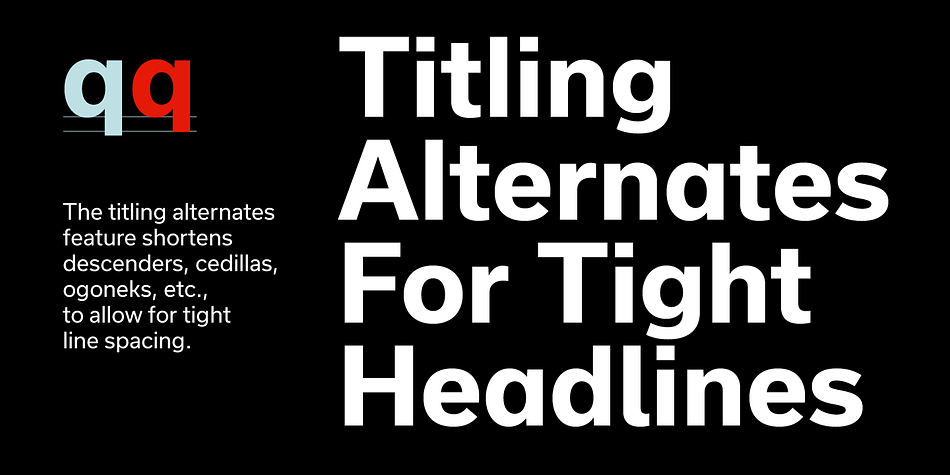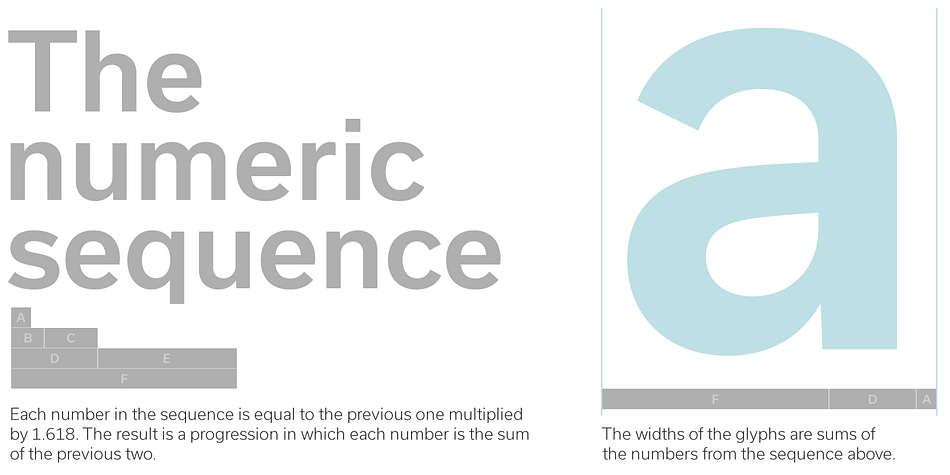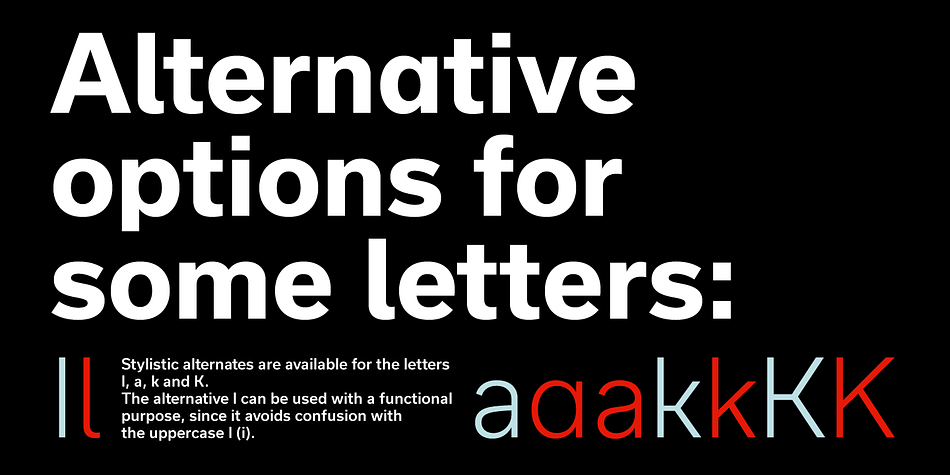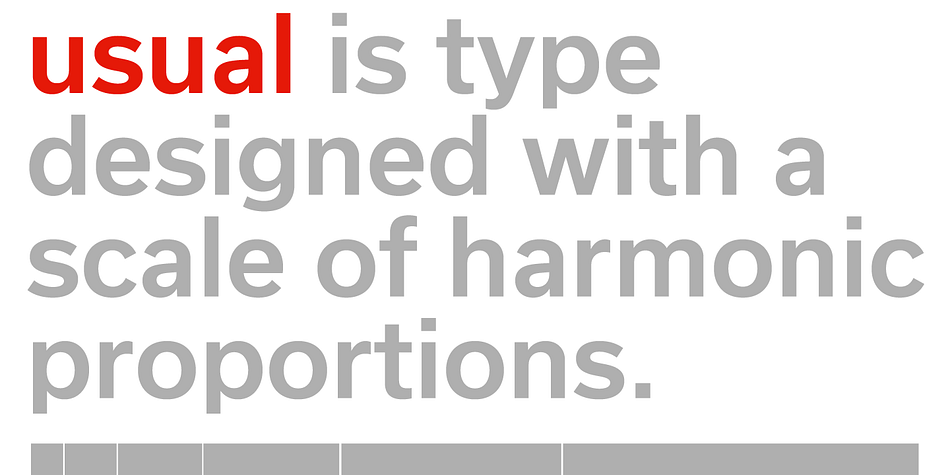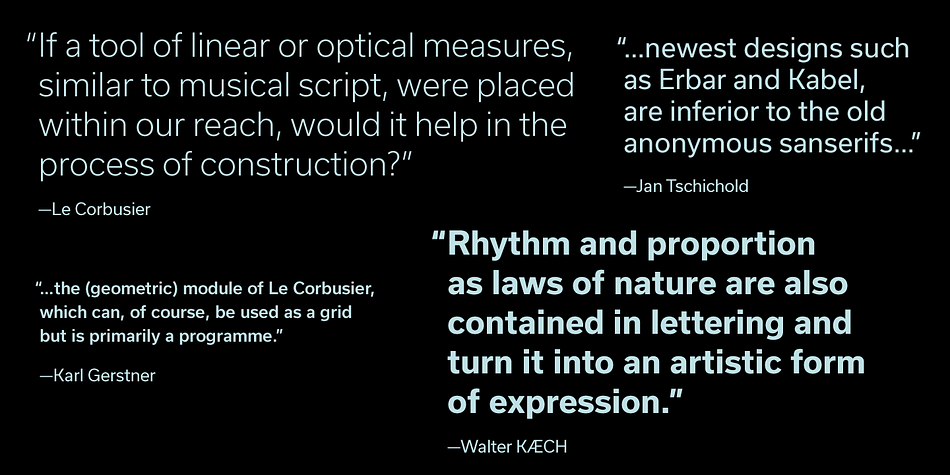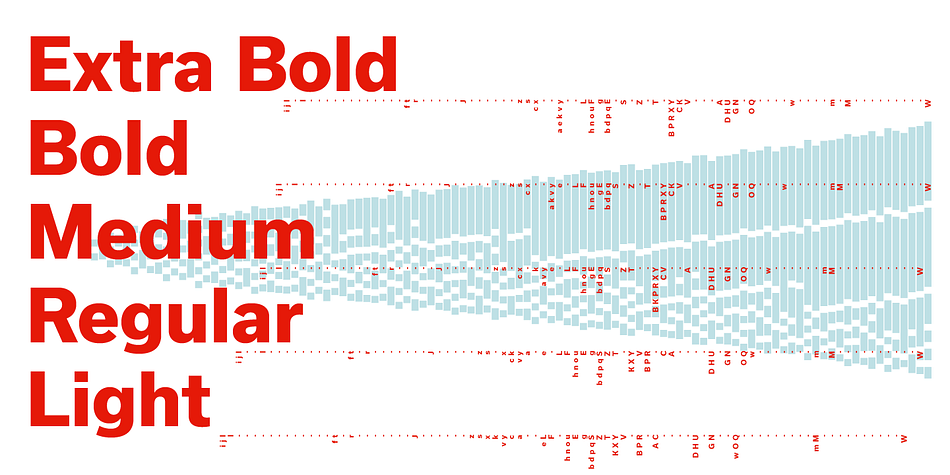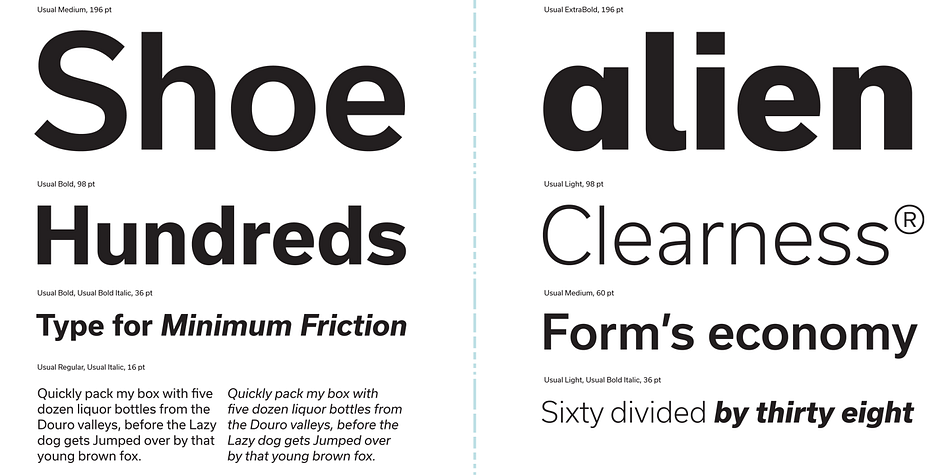
Usual is a sans serif font family. This typeface has ten styles and was published by Rui Abreu.
Usual is an utilitarian typeface, suitable for whenever typographic sobriety and neutrality is needed. With a clear modernist inspiration, Usual was born of the attempt at using a scale of proportions in type design.
Similarly to Le Corbusier’s Modulor, the scale of proportions used in Usual, works as a tool or program for the typeface’s metrics, and consequently, the rhythm of the stems.
Usual comprises 5 weights from Light to Extra Bold, with matching italics. It was designed to work well in a broad range of body sizes, from text settings to headlines. In addition to stylistic alternates and arrows, Usual’s OpenType features include letters with shorter descenders, useful for setting headlines with tight line-spacing.